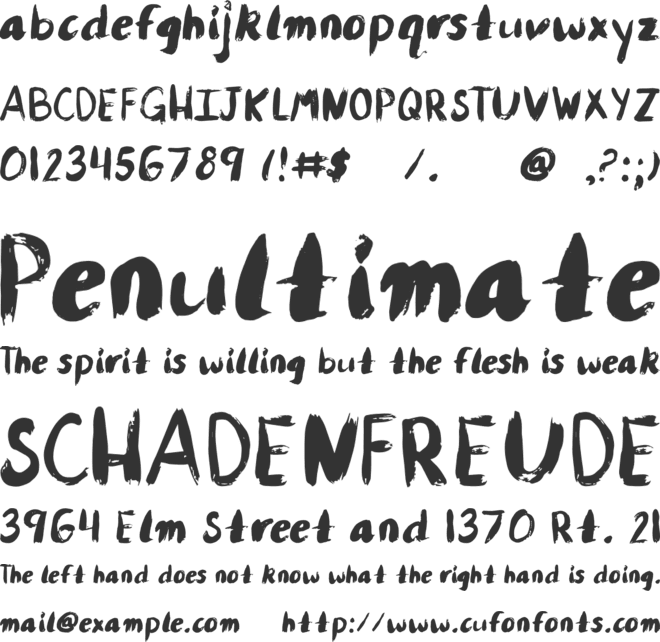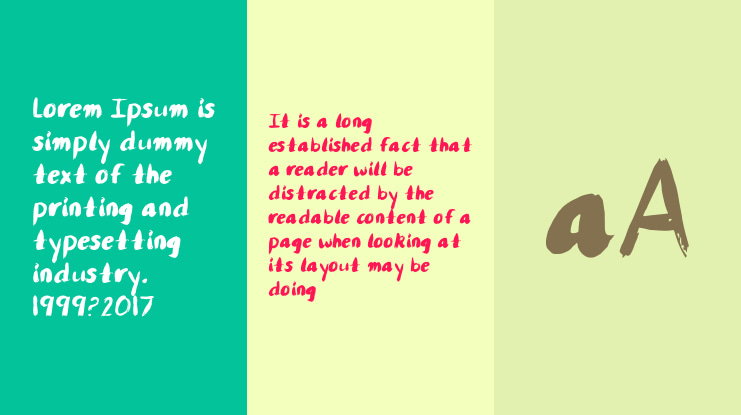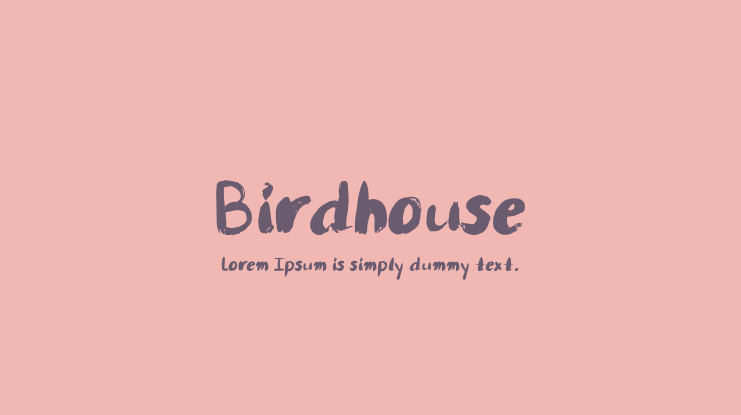
Birdhouse Font
Jodi Pelman
Birdhouse is a casual, hand-painted font that is ideal for promotional materials with a human touch. The varied line thickness and imperfect edges work ideally for stationery, logos, and packaging designs.